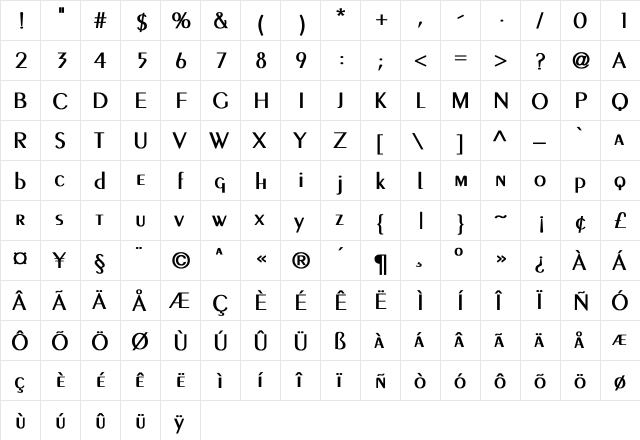
Peignot-Light Bold
Design Context for Peignot-Light Typeface
Peignot-Light is a composed and adaptable typeface that performs quietly and consistently across a wide range of design contexts. The heavy weight commands attention and anchors typographic hierarchies.